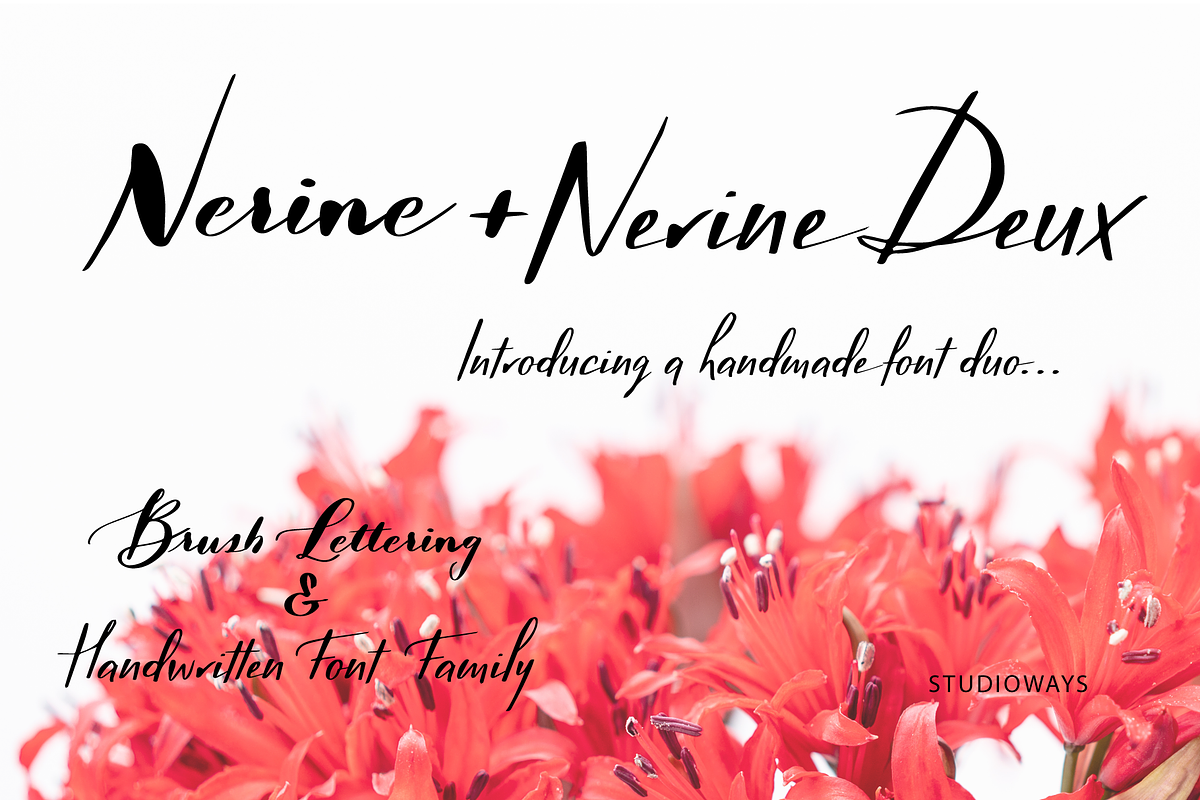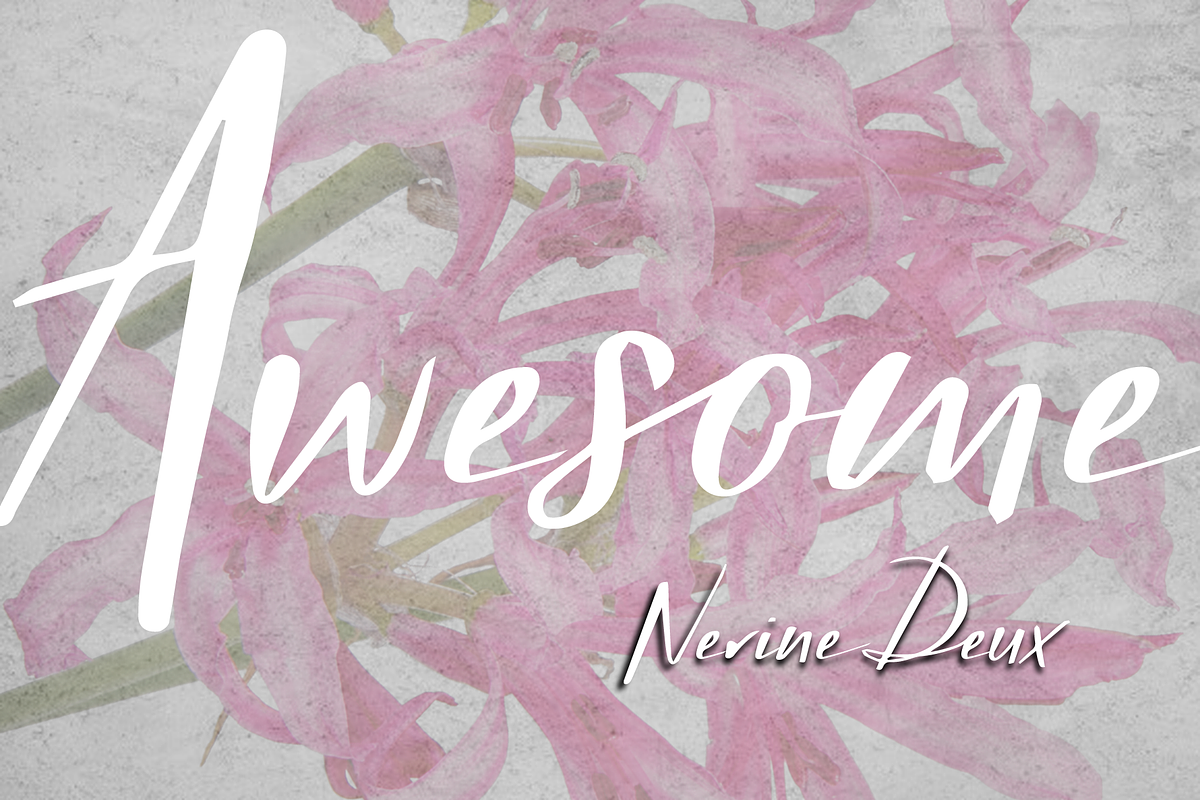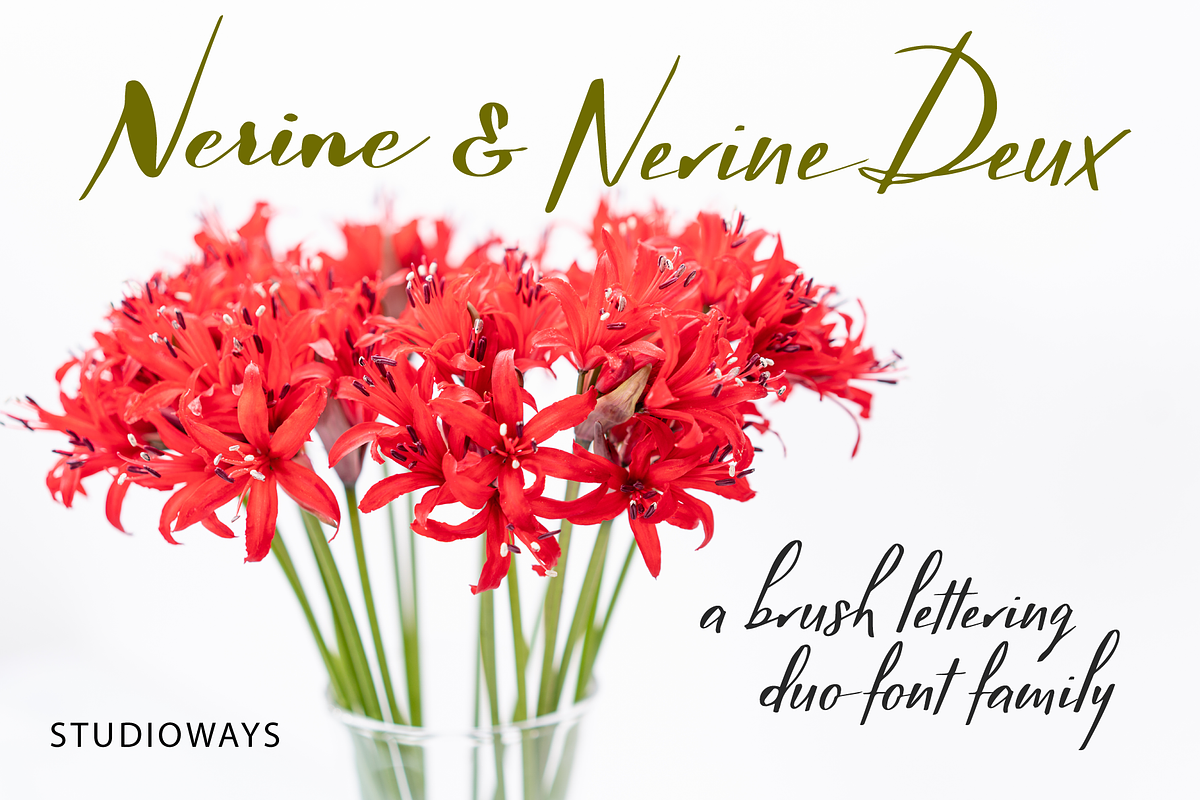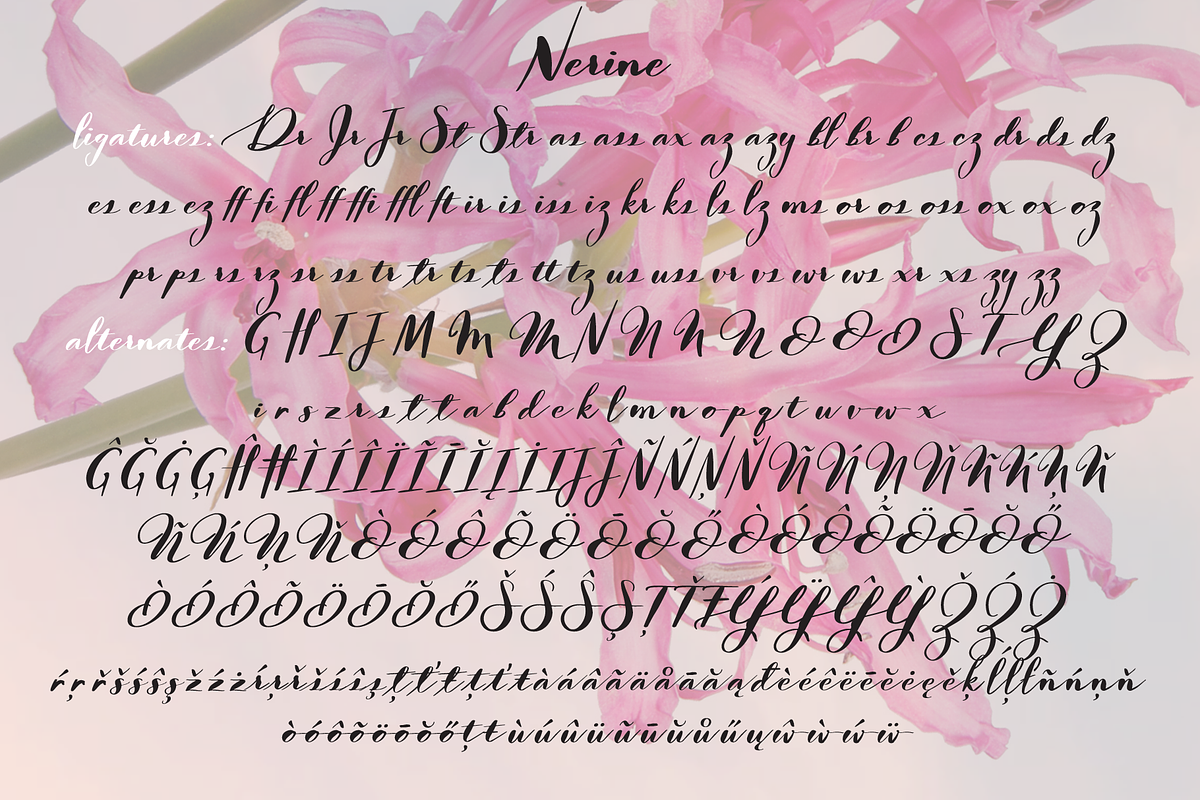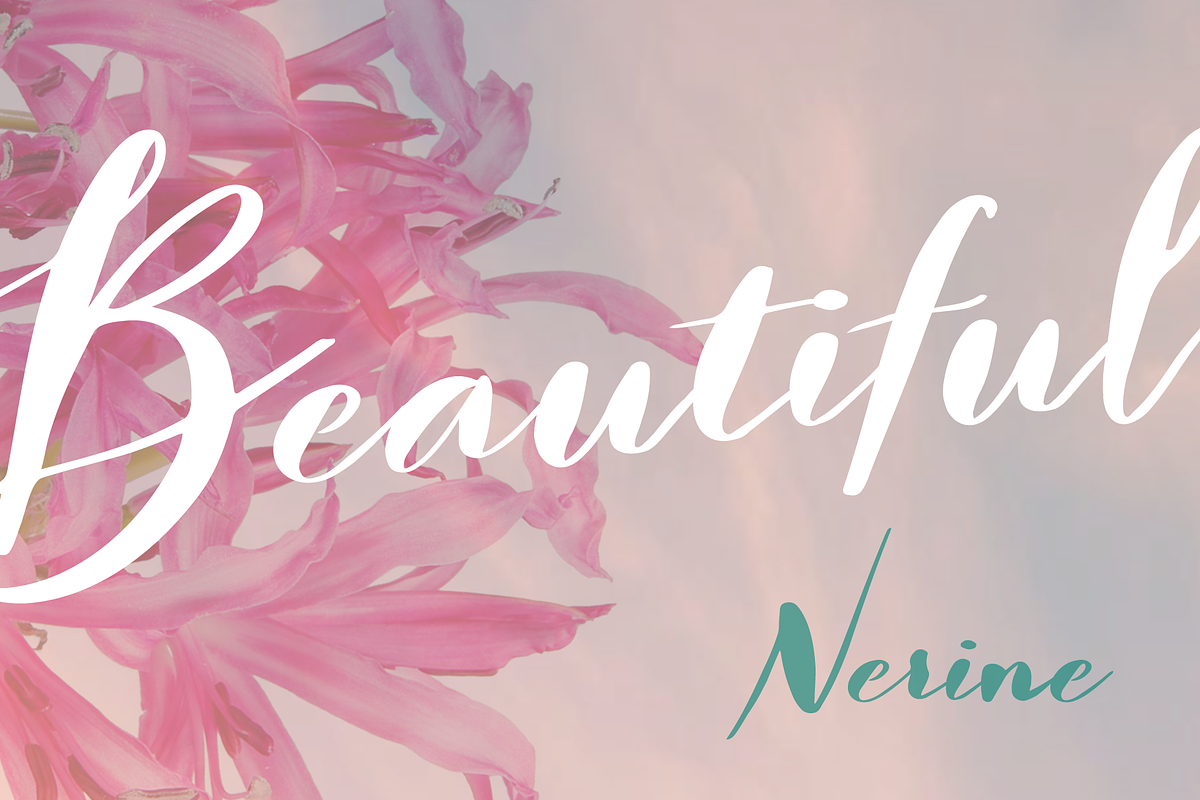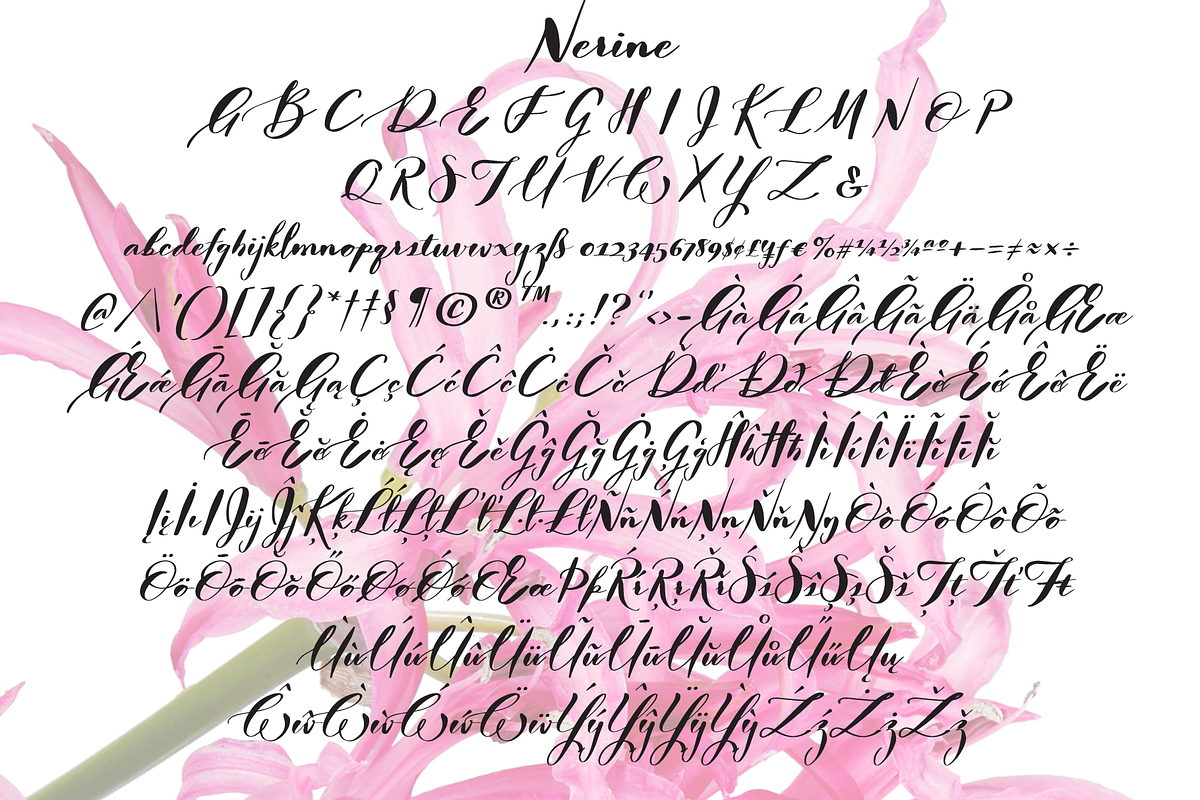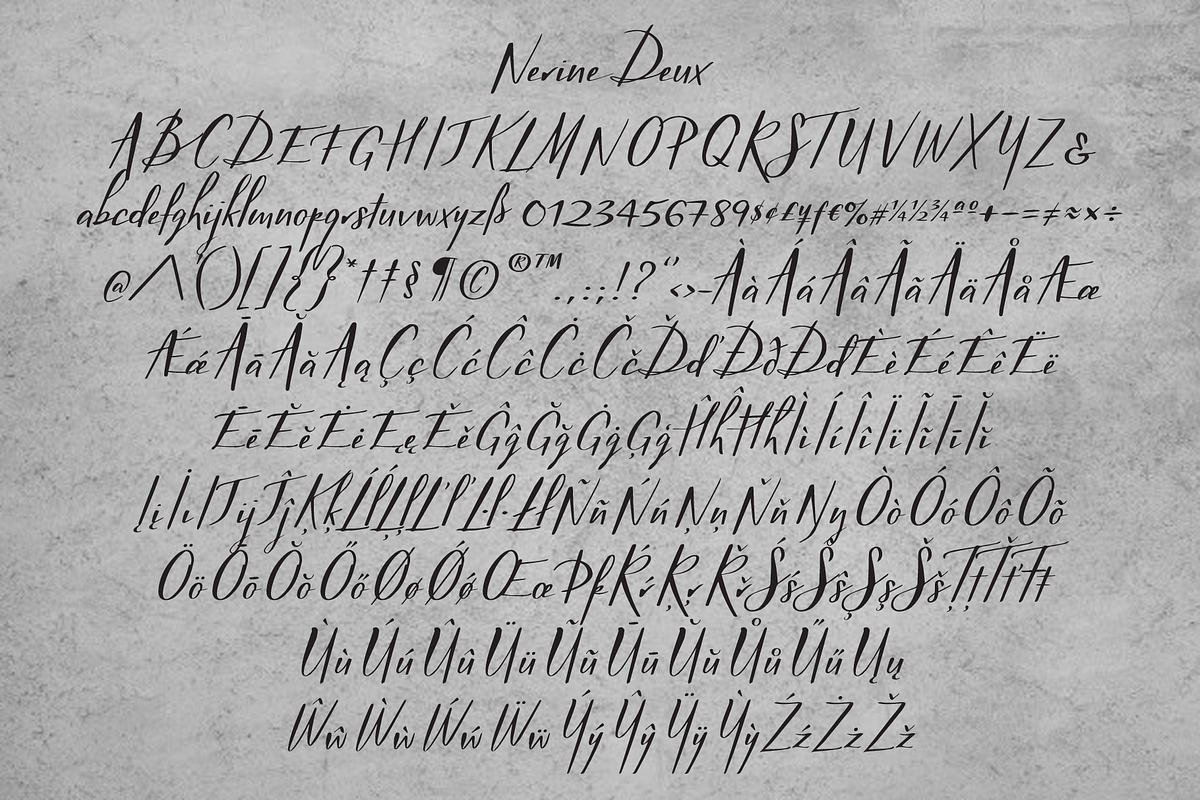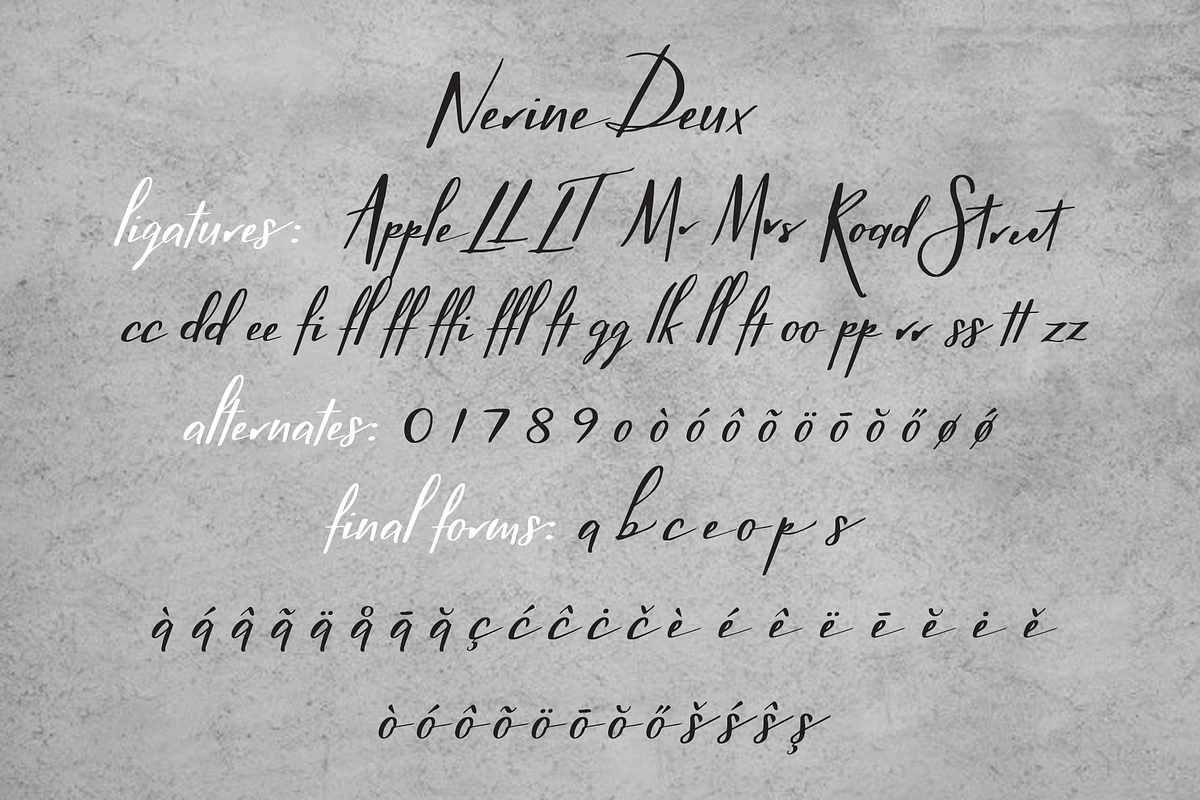
Nerine & Nerine Deux
Nerine is a modern brush lettering and handwritten font duo designed by hand lettering artist Eliza Gwendalyn. Both scripts were drawn completely by hand and digitally perfected to bring you these unique script fonts. Nerine is a bold, connecting brush script, with lots of swashes and loops, while Nerine Deux is a lighter, straight stroke semi-connecting script, with a little less flair. Both scripts are ideal for use in a wide range of projects, from branding & advertising to wedding stationery & birth announcements! They also pair well with sans serif and serif typefaces!
Each font is packed with ligatures and some alternate letterforms that help text runs appear more natural. The OpenType ligature feature will automatically insert ligatures when certain glyph combinations are typed, and the swash feature in Nerine will replace some beginning and ending letters with nice gentle swash alternatives. Nerinet also boasts five Style Sets that let you swap out groups of letters with interesting alternatives.
Both fonts support the extended European character set so language support is extensive.